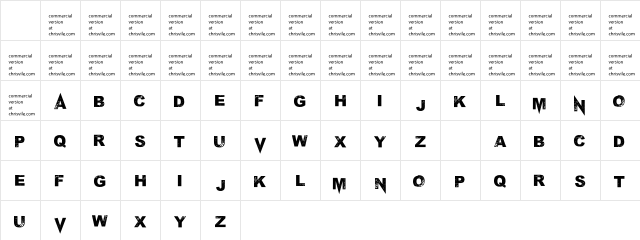
Complete M Ponderosa Regular glyph index. Displaying only characters natively supported by M Ponderosa Regular font.
M Ponderosa is a composed and adaptable typeface that performs quietly and consistently across a wide range of design contexts.